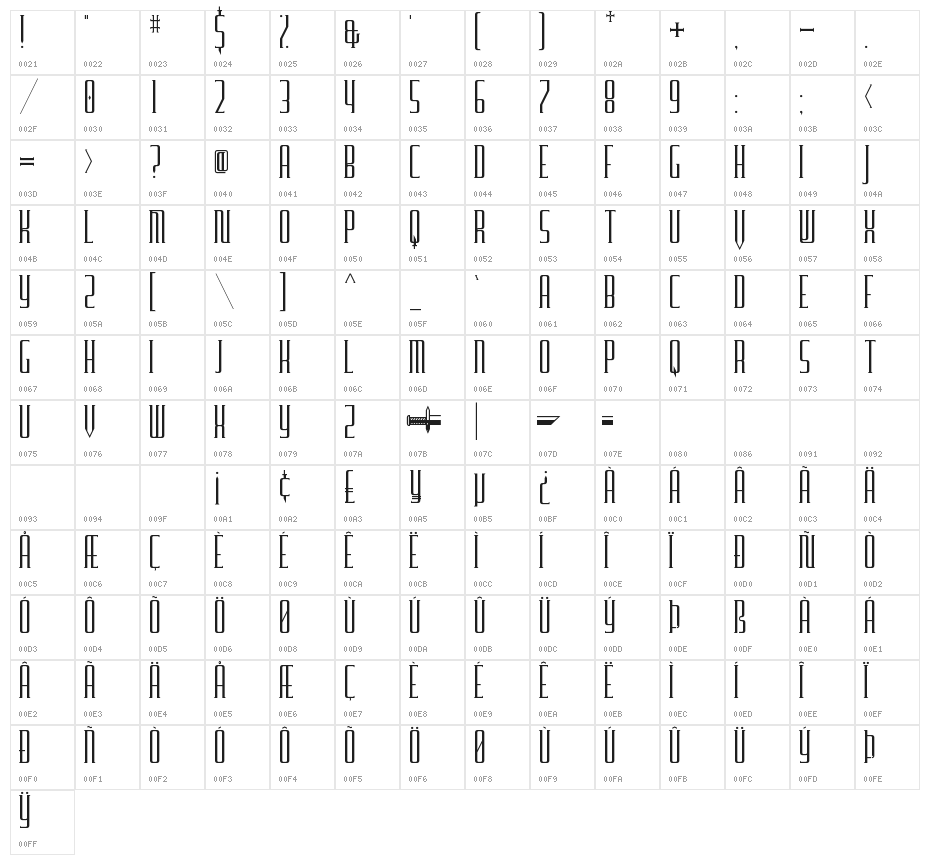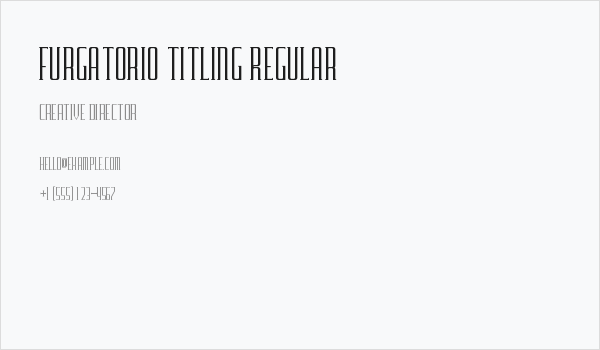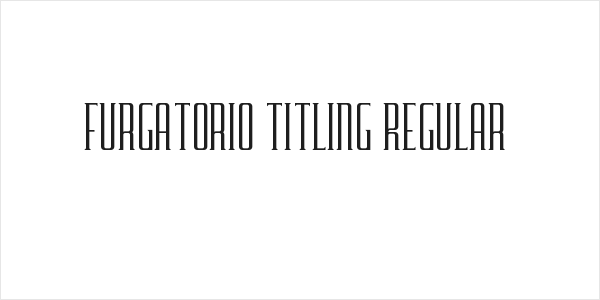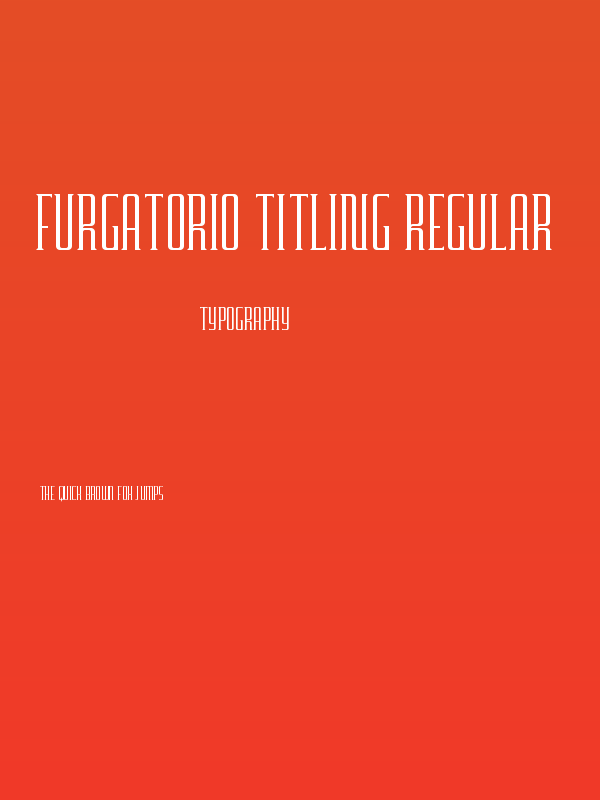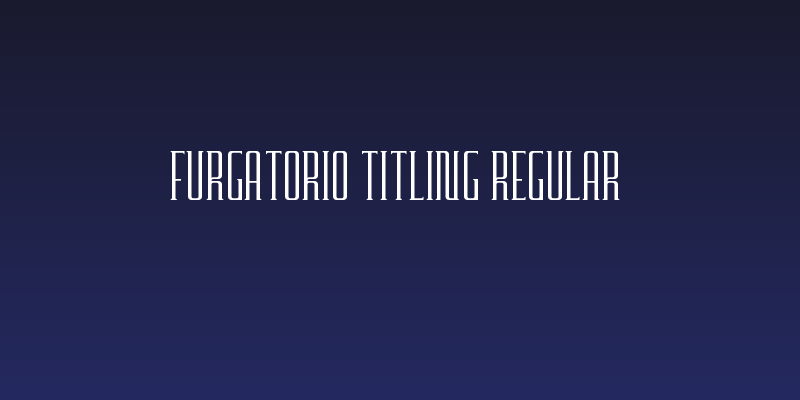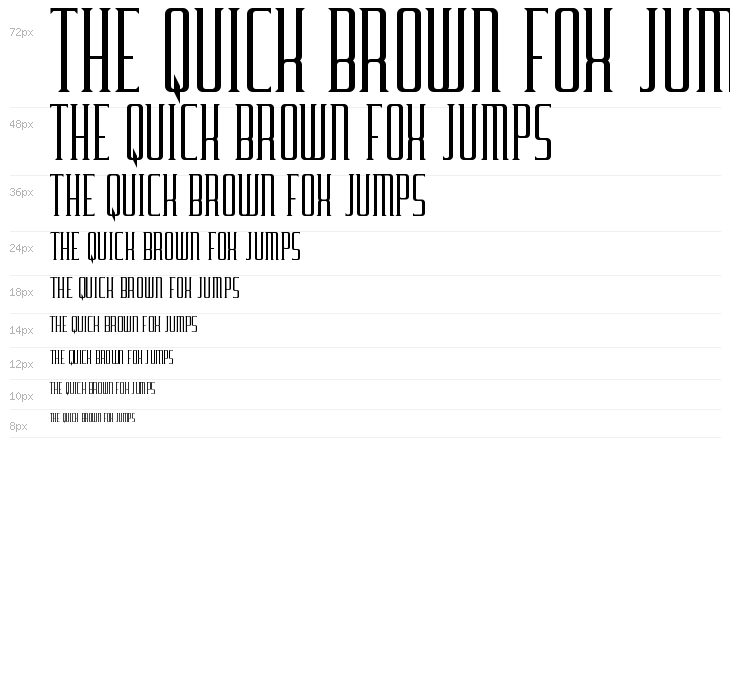
Furgatorio Titling Regular Font
Furgatorio Titling Regular Description
This font features a striking and elongated design, characterized by tall, narrow letterforms with sharp, angular serifs. The uppercase letters exhibit a unique blend of modern and vintage styles, with a high contrast between thick and thin strokes that adds a dramatic flair. The lowercase letters maintain the same elongated form, creating a cohesive and elegant appearance. Numbers and special characters are designed with the same attention to detail, ensuring consistency across all elements. The overall aesthetic is bold and eye-catching, making it suitable for projects that require a distinctive and memorable typeface.
| Overall Style | Modern, Vintage |
| Proposed Projects | Ideal for use in branding, poster design, book covers, and any project that requires a bold, memorable typeface. |